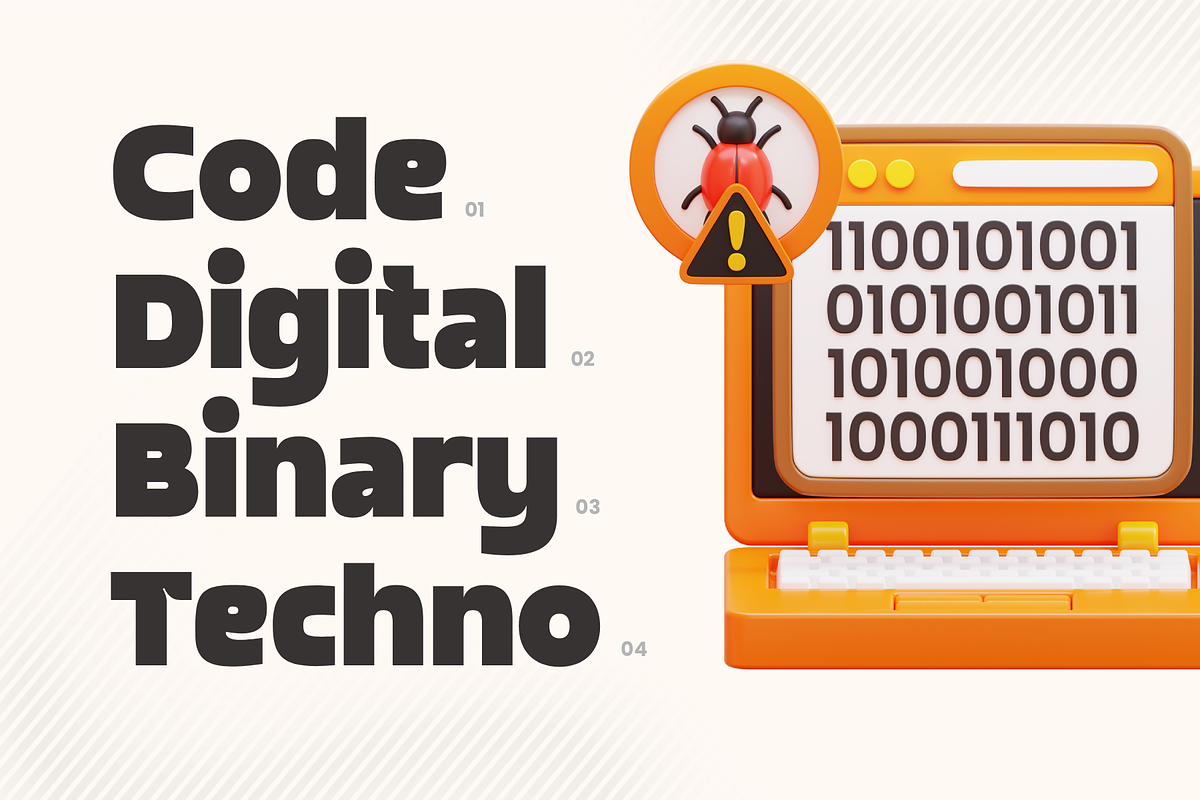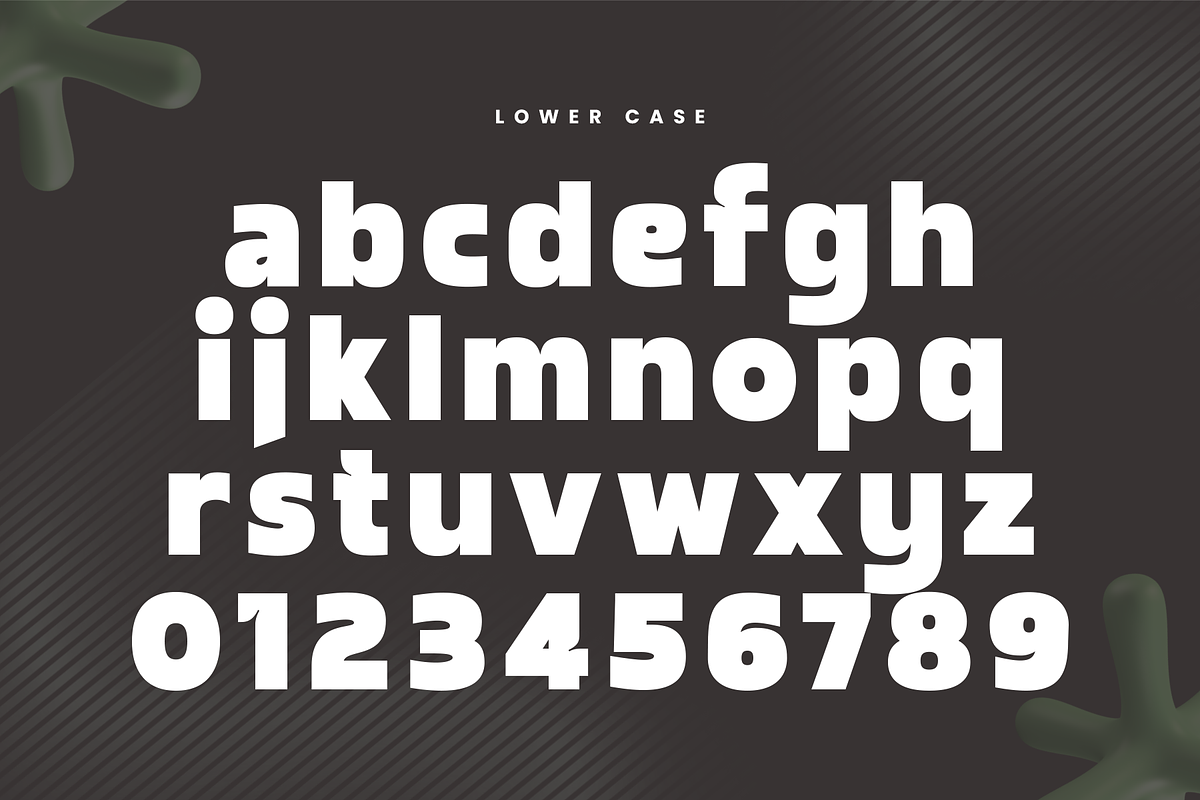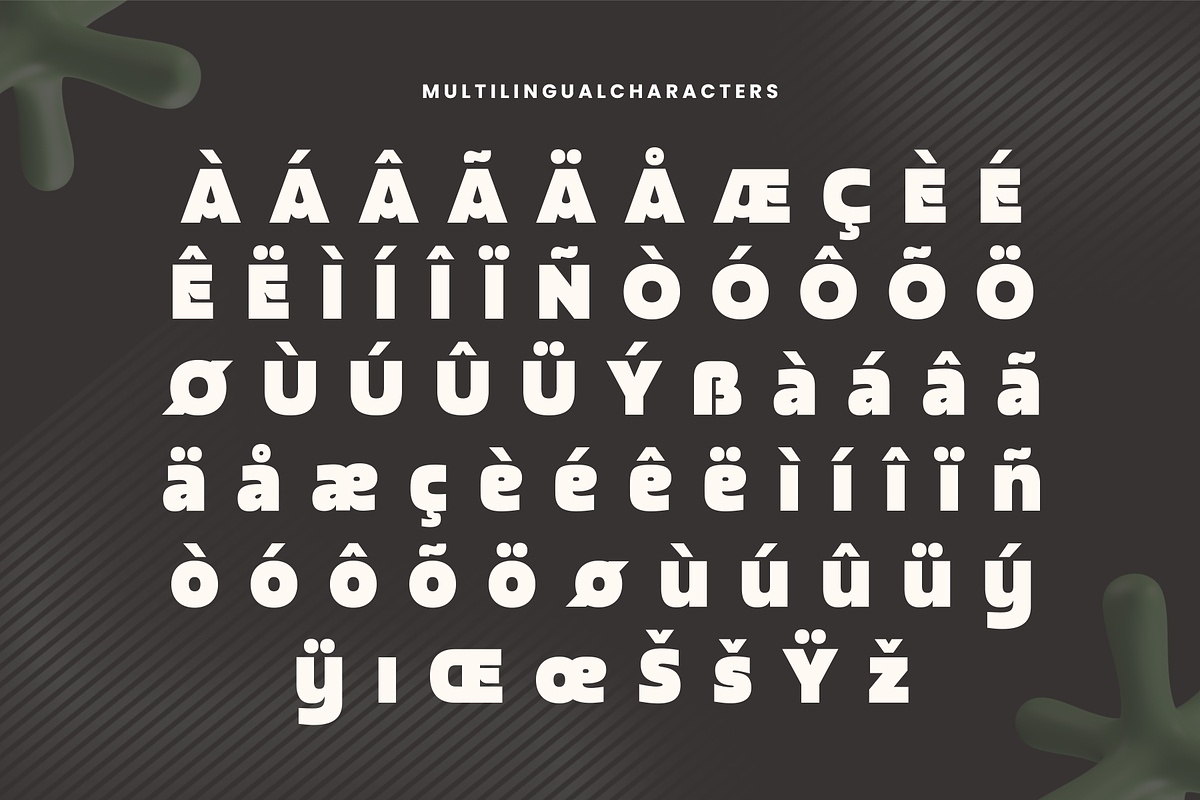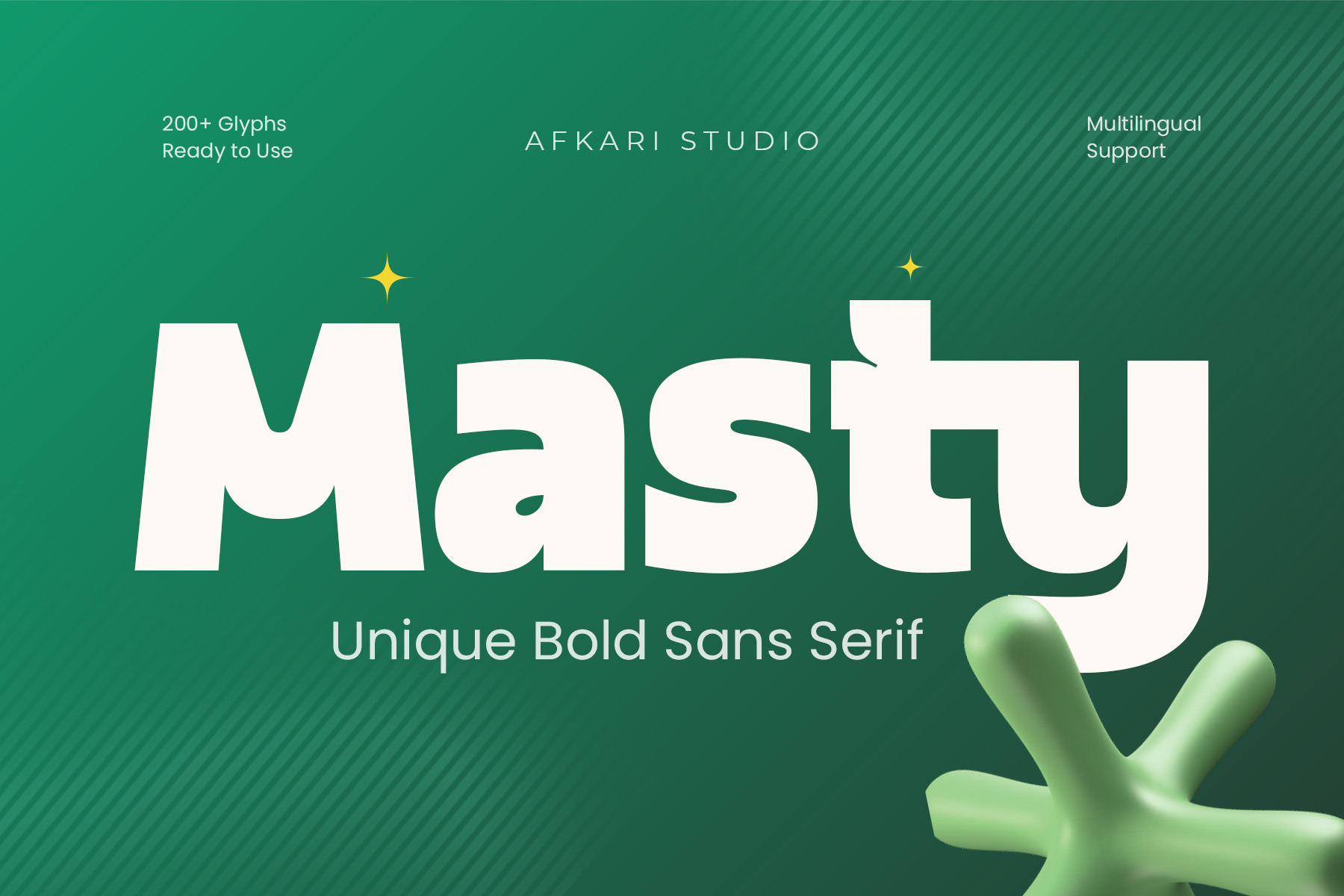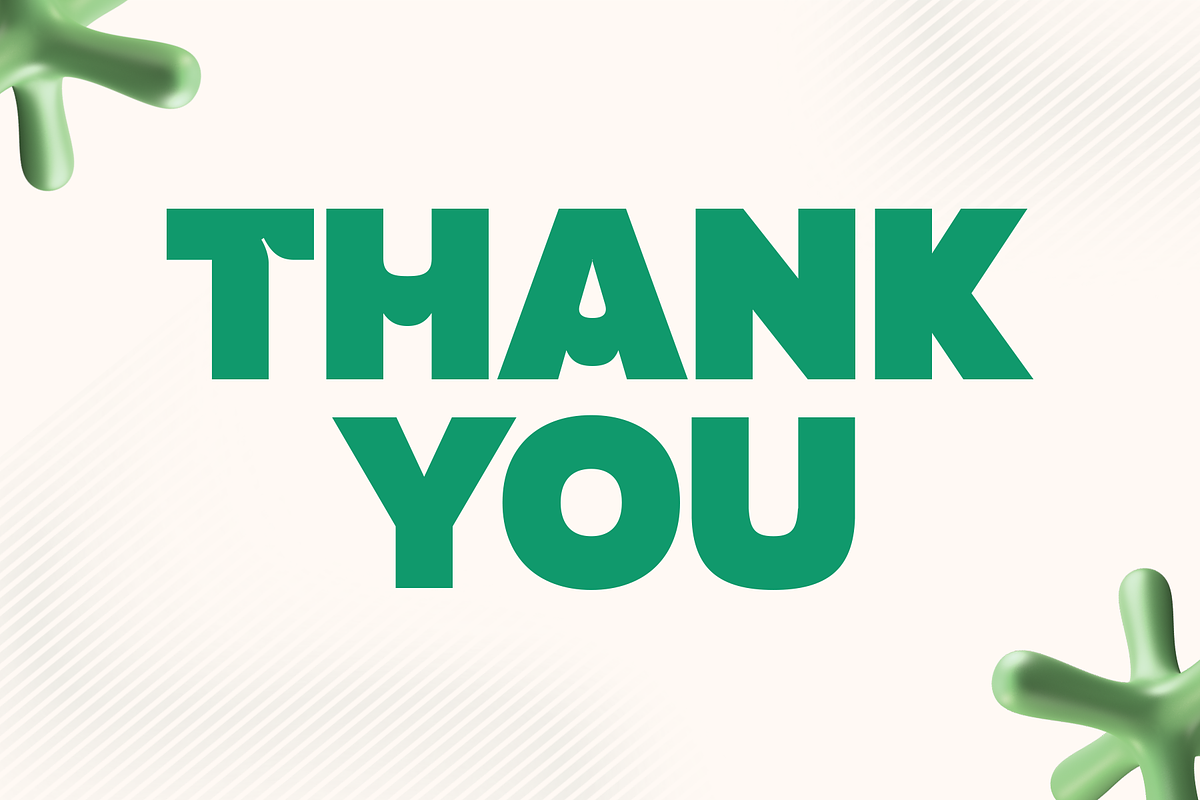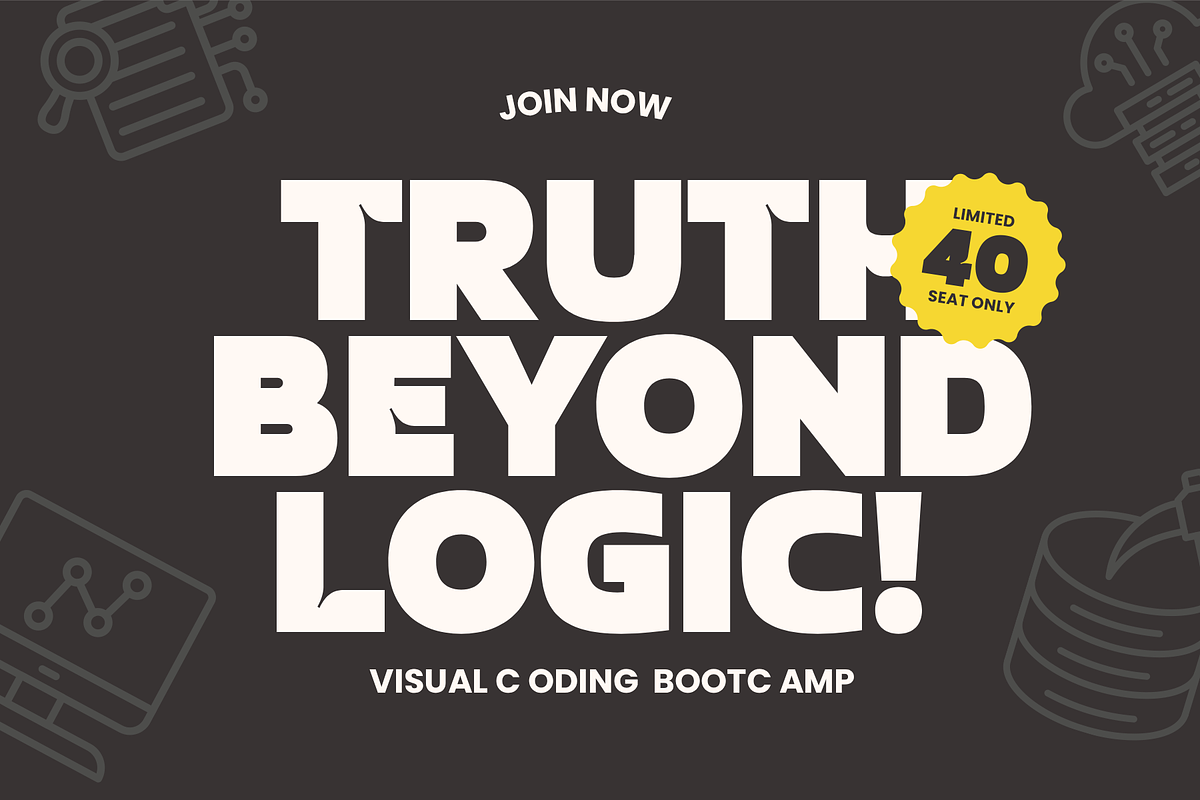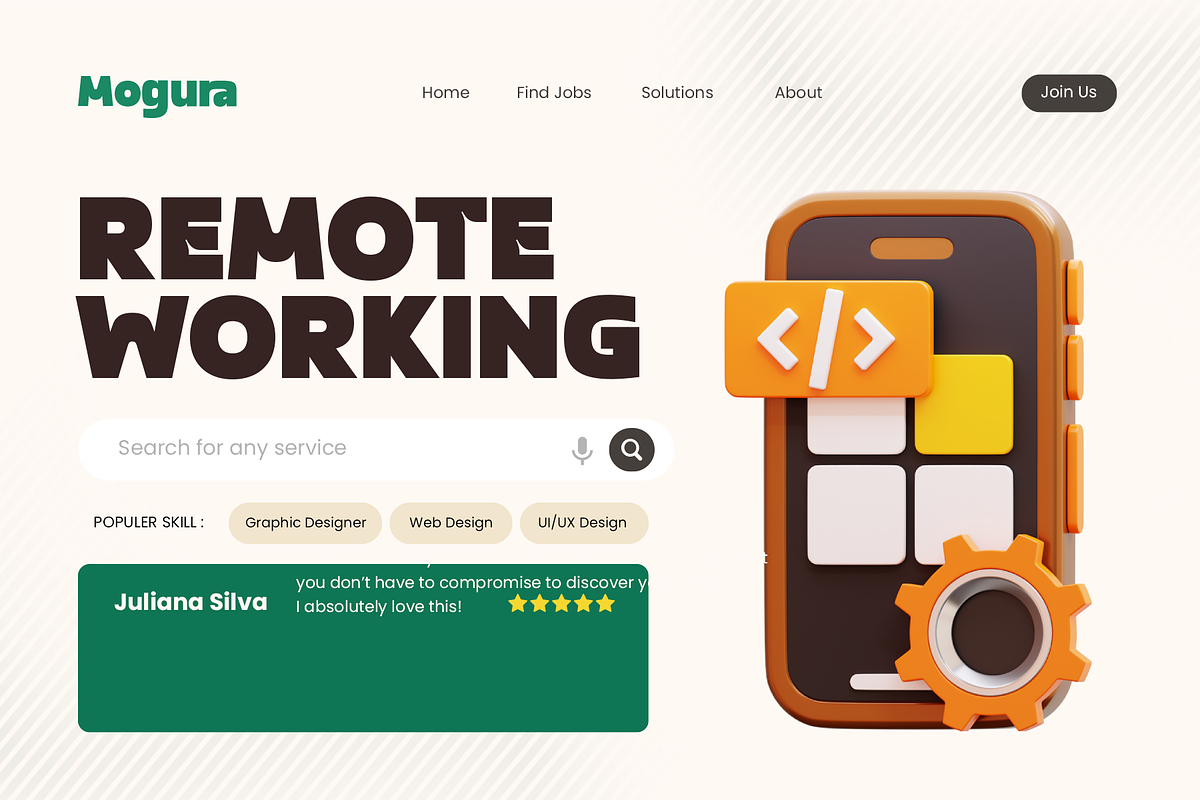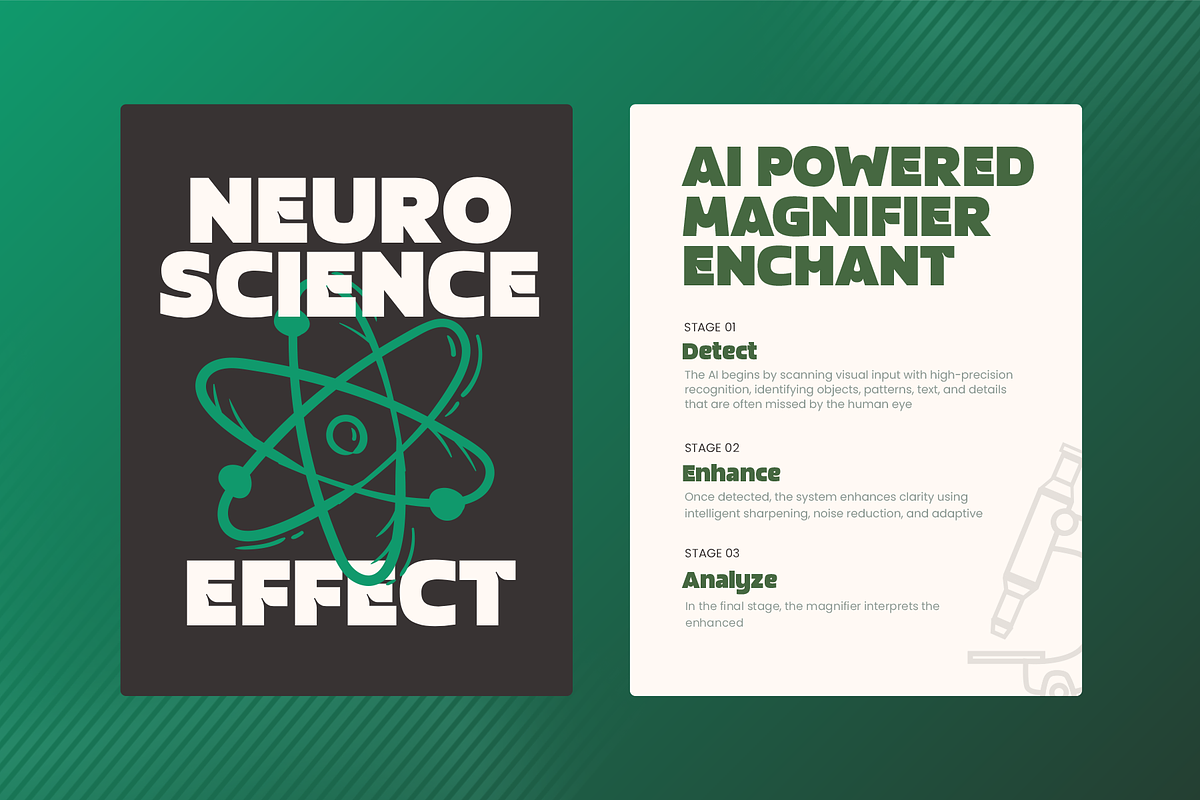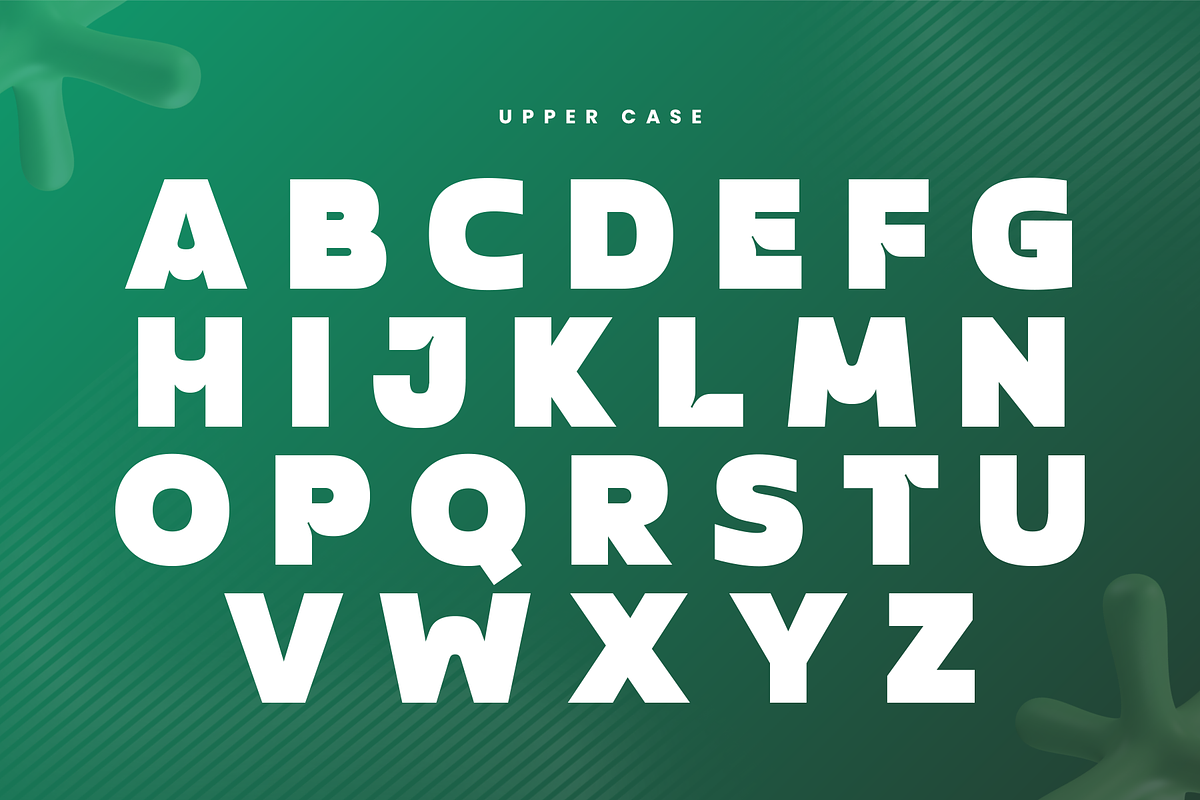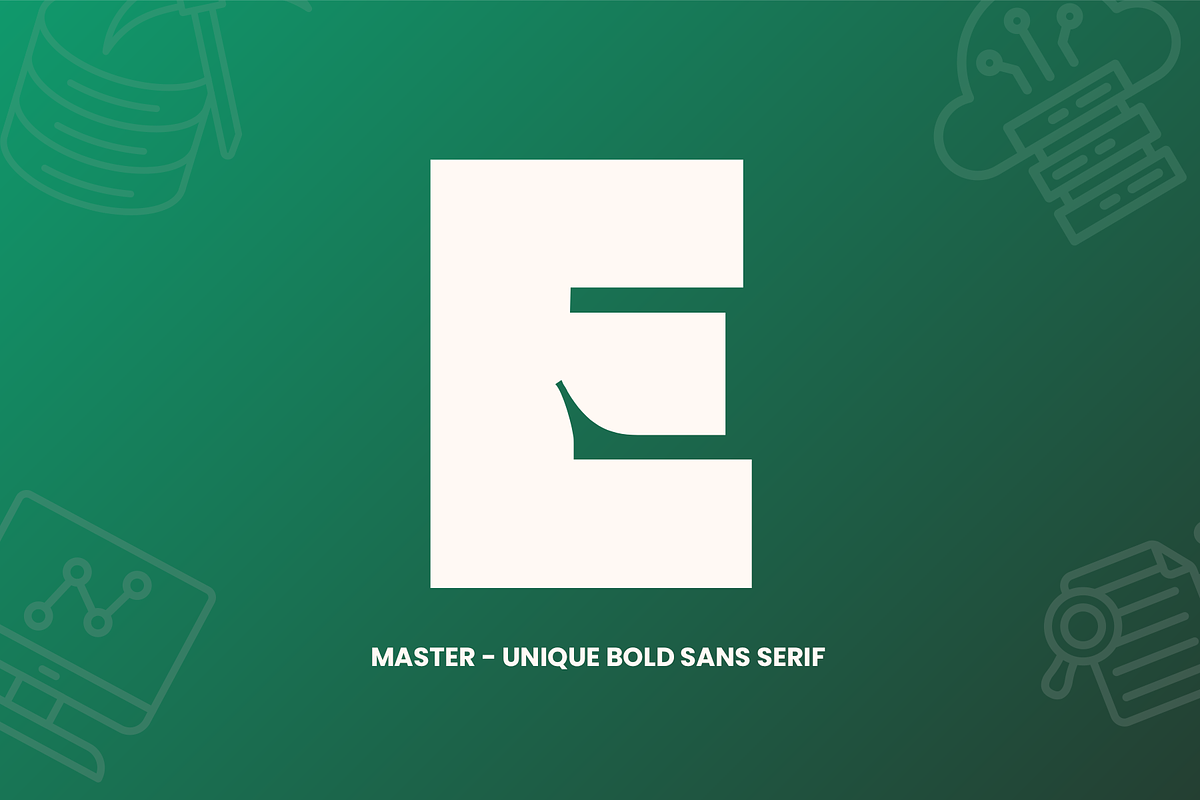
Masty - Unique Bold Sans Serif Font
Masty is a bold sans serif font designed to deliver strong visual presence with clean geometry and unique character shapes. Perfect for creatives who want their designs to stand out, Masty blends modern minimalism with eye-catching originality, making it ideal for branding, editorial layouts, display headlines, packaging, and bold statement graphics.
Every letter in Masty is crafted with striking proportions and subtle quirks, giving your typography a fresh identity without sacrificing readability. Its confident strokes and smooth form balance elegance and power—making Masty your go-to font for professional and creative projects across digital and print formats.
Whether you're designing logos, posters, social media graphics, website headers, or product labels, Masty ensures every word becomes a visual highlight.